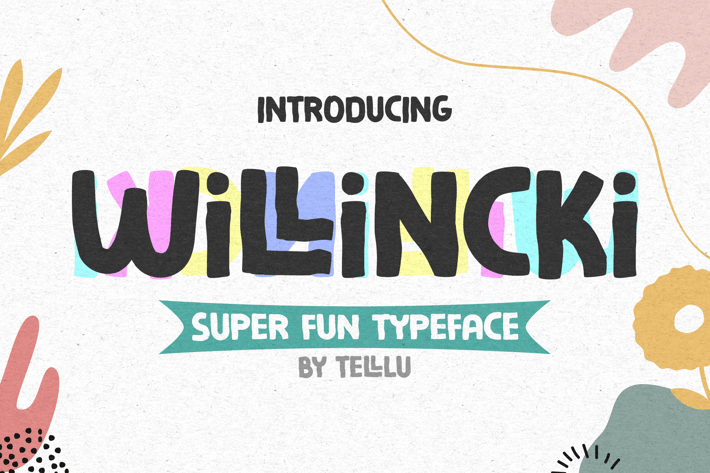
Willincki - A Quirky & Playful Typeface
Willincki is a quirky & playful typeface.\
With very fun and friendly character. A casual typeface that could bring strong message through your words. Perfect for any science or school projects, books cover, or presentation title.\
Also good to use on culinary project like street food, food truck, restaurant, cafe and any branding material like logo, presentation, clothing, menu, packaging, quotes, flyer, poster, banners, and else.